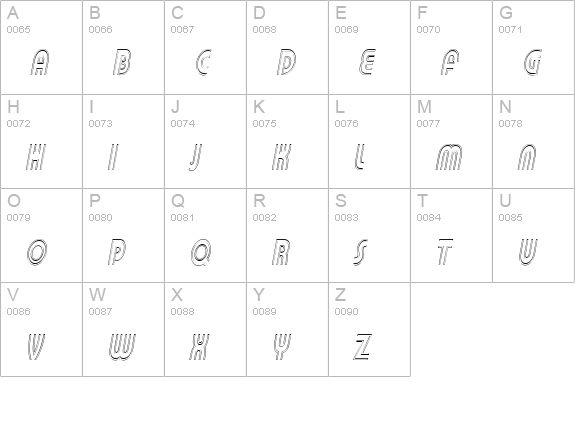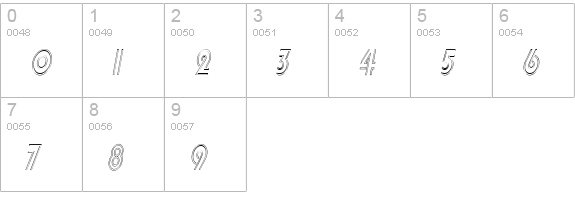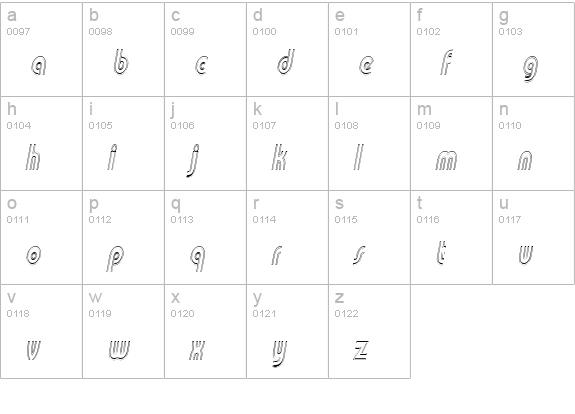
Pi in the SciFi Font Details
Introducing Pi, a captivating and futuristic typeface that will transport your designs to the outer realms of science fiction. With its sleek and intricate letterforms, Pi embodies the essence of technology, innovation, and limitless possibilities. This enigmatic font is imbued with a sense of boundless exploration, seamlessly blending the mechanical precision of a well-calibrated spaceship with the ethereal allure of distant galaxies. Its angular lines and geometric shapes create a mesmerizing visual rhythm, evoking the pulsating energy of a wormhole or the dazzling light trails left by interstellar travel. The unique SciFi font of Pi is a testament to the imagination of its creators, who have masterfully crafted each character to reflect the enigmatic nature of the cosmos. Its striking presence makes it perfect for a wide range of science fiction-inspired projects, from book covers and movie posters to video game titles and futuristic branding. But here's the best part: Pi is not just an extraordinary font, it is also freely available to download at FontsMarket.com. The creators of Pi believe that creativity should be accessible to all, and by offering this font for free, they are empowering designers to bring their visions to life without any limitations. So, whether you're a seasoned graphic designer looking to add a touch of otherworldly charm to your latest project, or an aspiring creator eager to embark on a cosmic journey of design, Pi is the perfect companion. Embrace the future and download Pi today, and let your imagination run wild in a universe where creativity knows no bounds.